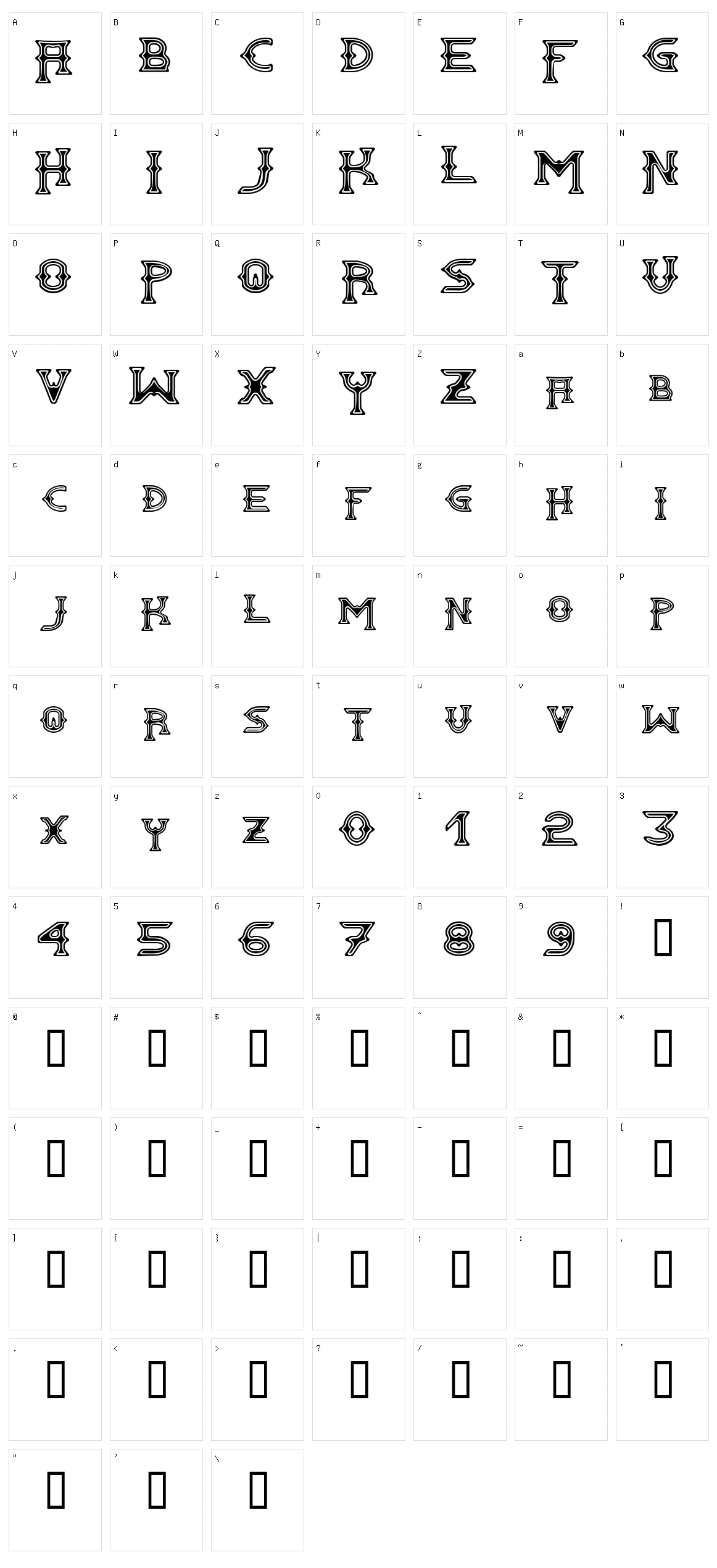
The free font Gawain is carefully designed by Dieter Schumacher, showcasing a thoughtful balance of creativity and usability and belongs to the Gothic font family. When you download the ZIP file, it contains only 31.58 KB of font files, making it lightweight and quick to download. Please review the license details below to understand permitted usage and distribution rights. If license information is not available, we recommend using this font for personal projects only or contacting the author directly for commercial usage permissions.